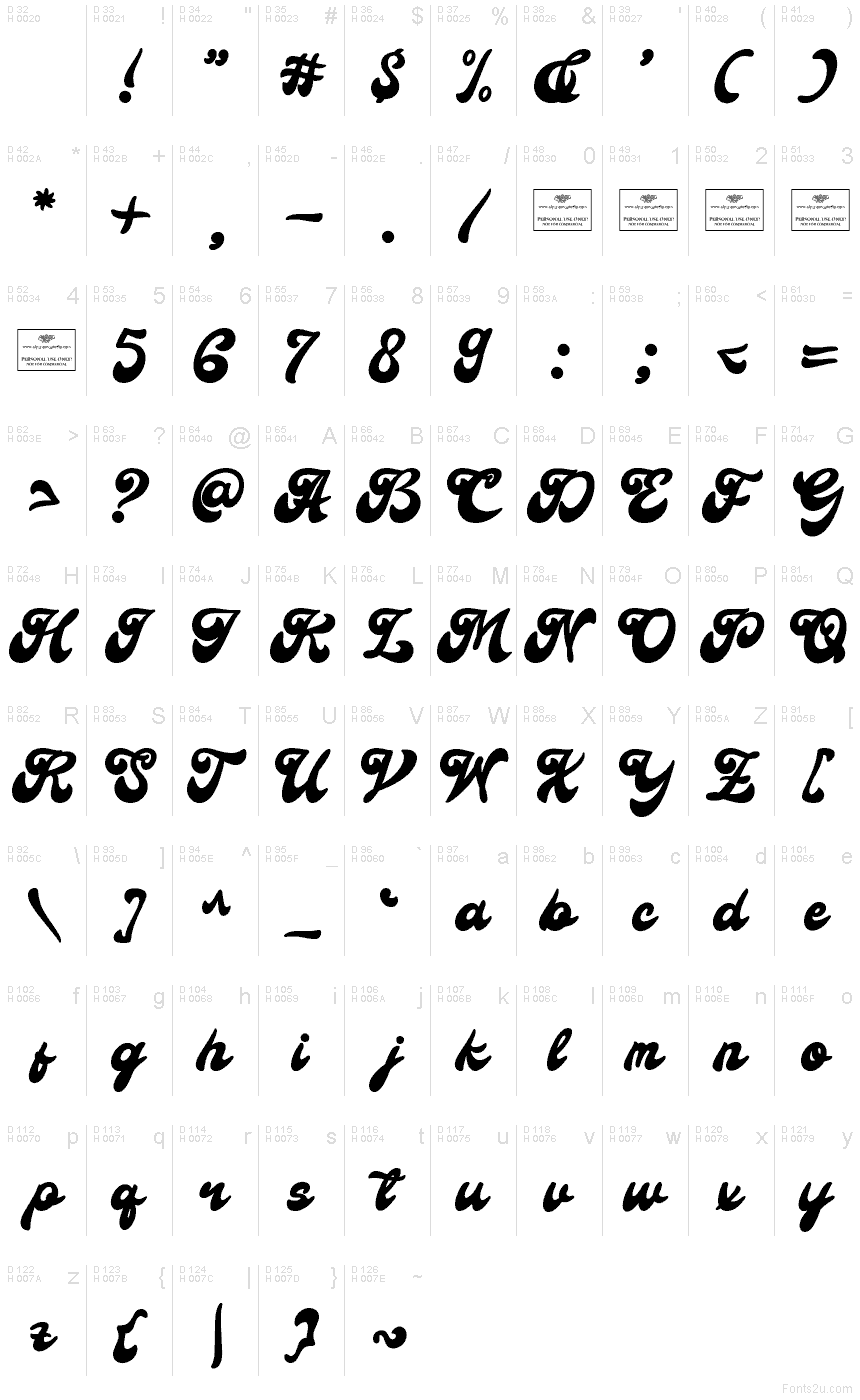
Psychedelic
Psychedelic font is a bold retro-inspired display typeface that lets chaos do all the talking. Created by Alpaprana Studio, this brush and swirling character font jumps from one character to another in energetic moves. The free-flowing transitions make the text expressive, rhythmic, and fluid all at once.
The groovy feel of this free font takes you back to dancefloor posters, music covers, merchandise designs, business cards, old magazine covers, albums/booklet covers, drinks packaging designs, logos and branding projects. Grab it now for products that need some energized presentation!